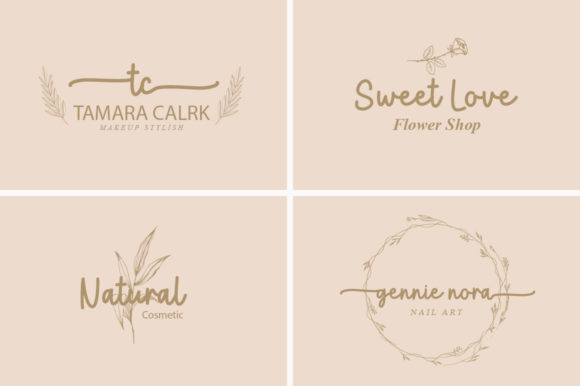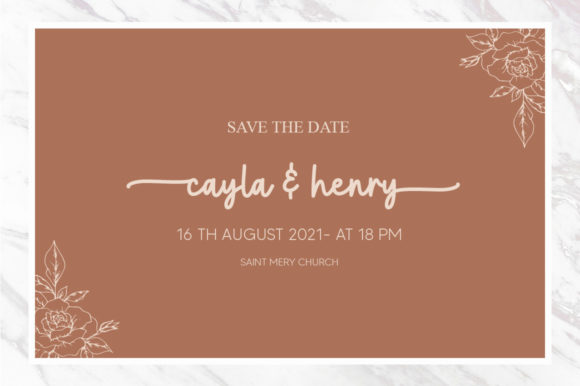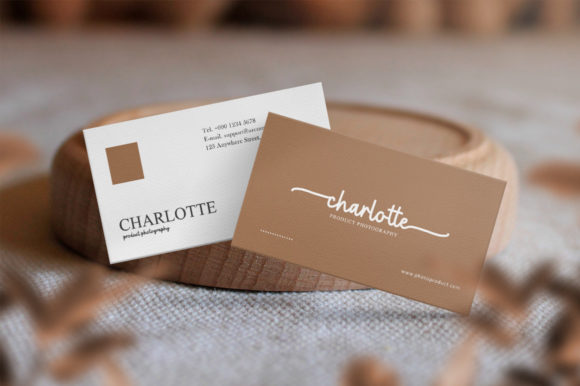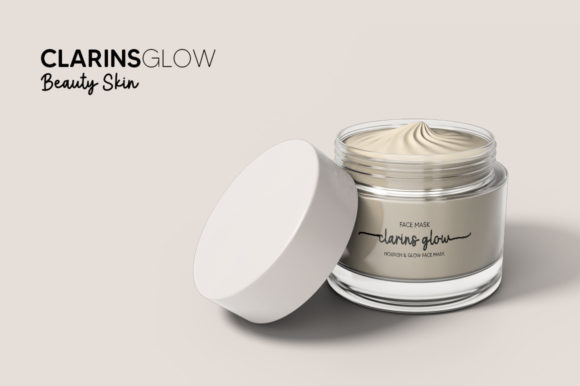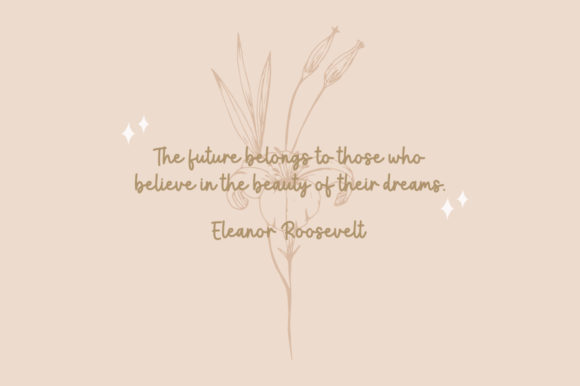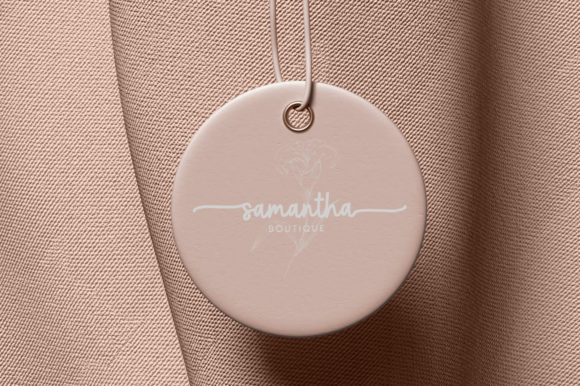
Introduction to Blush & Bloom Font
Remember the moment when you finally found the perfect font to elevate your design project? The feeling of excitement and satisfaction is unmatched, especially when you know you’ve chosen a high-quality design resource that will take your creative project to the next level. For designers, having access to the right fonts can make all the difference between a good design and a great one.
Enter the Blush & Bloom Font, a stunning script font that embodies sophistication and elegance. Its stylish alternates and ligatures make it the perfect match for any project, from wedding invitations to luxury branding. With its transparent background and PUA encoding, you can access all of the glyphs and swashes with ease, giving you the freedom to get creative.
Key Features of Blush & Bloom Font
- Includes 6 unique font styles with varying weights and designs, allowing for versatile use in various contexts.
- Blush & Bloom Font is a unique and creative design resource that can add a touch of elegance to any project.
Honest Review: Blush & Bloom Font
I recently came across the Blush & Bloom Font, a high quality design resource that caught my attention. At first glance, I was drawn to its delicate and feminine style, perfect for any creative project.
Here are some aspects that work well for this font:
- ✨ Elegant and refined design, ideal for wedding invitations, floral arrangements, or any romantic theme
- ✨ Highly versatile, suitable for digital and print materials, including websites, magazines, and packaging
- ⚠️ Limited character set, which may not be suitable for extensive writing projects
- ⚠️ May not be the best choice for bold or dramatic designs, as it’s more suited for subtle and delicate themes
Overall, I’m impressed with the Blush & Bloom Font’s transparent background and beautiful design. It’s a fantastic addition to any designer’s collection, especially for those who work on creative projects that require a touch of elegance and sophistication.
The Blush & Bloom Font is a high-quality design resource perfect for creative projects. With its beautiful and elegant style, it can add a touch of sophistication to any design.
– Wedding invitations and stationery
– Baby shower invitations and decorations
– Bridal shower invitations and decorations
– Event invitations and promotional materials
– Digital design projects, such as social media graphics and blog posts.